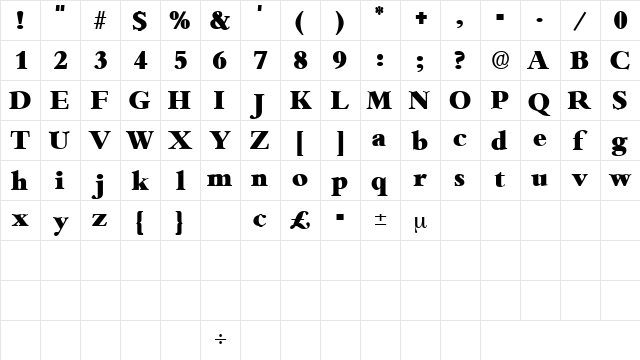
ScholeDisplaySSK Regular
Design Context for ScholeDisplaySSK Typeface
ScholeDisplaySSK is built around its visual character rather than neutral utility — its distinctive forms are designed to make an impression at display sizes.
Font Pairing: Pair with a clean neutral sans-serif for body copy to let ScholeDisplaySSK's character lead without overwhelming the composition.
Pro Tip: Use ScholeDisplaySSK exclusively at display sizes — it was designed to be seen, not read at length. Let a neutral companion handle body copy.